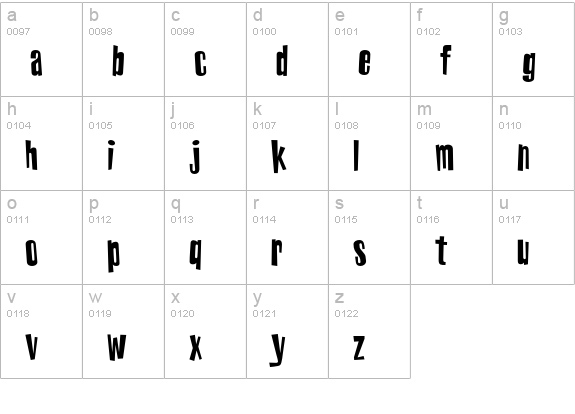
BeatStreet Font Details
Introducing BeatStreet font – a dynamic and energetic typeface exuding urban flair and modern edge. With its bold and stylish design, BeatStreet is perfect for creating eye-catching headlines, posters, and branding materials. This versatile font offers a contemporary feel with a touch of street-inspired charm, making it ideal for projects that demand a fresh and youthful aesthetic. And the best part? BeatStreet font is available for free download at FontsMarket.com! Embrace the creativity and versatility of this remarkable typeface without any cost, and elevate your designs with its unique personality and charisma. Don't miss out on the opportunity to add BeatStreet to your font collection today and infuse your projects with a dose of urban coolness.